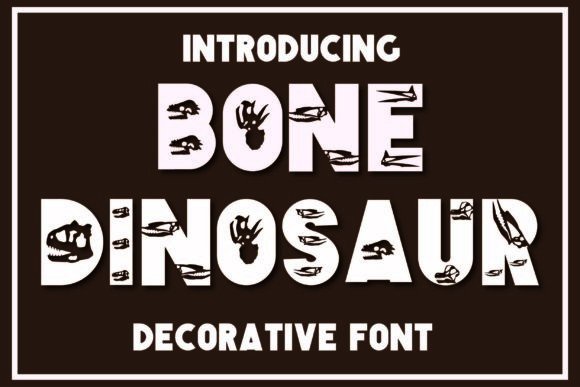
Step into the primeval era of Jurassic typography with Bone Dinosaur Font, where the echoes of extinct behemoths meld seamlessly with the creative spirit of modern design. A font that pays homage to ancient giants, Bone Dinosaur encapsulates the essence of the Mesozoic era, where colossal beasts ruled the Earth. Created by the visionary minds at CHEETAH DOODLE, this decorative font is an artistic masterpiece that will transport you to a world where fantasy meets reality.
Immerse yourself in a world where imagination reigns supreme, where prehistoric charm collides with contemporary flair. Bone Dinosaur Font is a treasure trove of creativity, a portal to a world where the echoes of dinosaurs and the ingenuity of human artistry intertwine. Whether you're a seasoned designer, a casual crafter, or simply a lover of all things unique, this font is the ultimate tool to unleash your inner artist.
With Bone Dinosaur Font in your digital arsenal, ordinary designs transform into captivating masterpieces. Its bold, distinctive letterforms evoke a sense of nostalgia and wonder, adding a touch of whimsy to any project. Picture your designs adorned with the captivating curves and sharp edges of Bone Dinosaur, as if each letter was a fossilized artifact unearthed from the depths of time.
Unleash the boundless potential of Bone Dinosaur Font and embark on a journey of artistic exploration like never before. Its intricate details and captivating style will breathe life into your creative endeavors, captivating audiences with its timeless charm. Prepare to be enthralled by the captivating allure of Bone Dinosaur Font, a font that blends the ancient and the modern, the whimsical and the sophisticated. Embrace the Jurassic vibe and let your imagination run wild with this captivating font.
Open the door to a world of endless creative possibilities with Bone Dinosaur Font. It's the perfect companion for a myriad of projects, from eye-catching logos and posters to captivating social media graphics and stunning website designs. Let your creativity soar as you craft unique and memorable designs that leave a lasting impression.